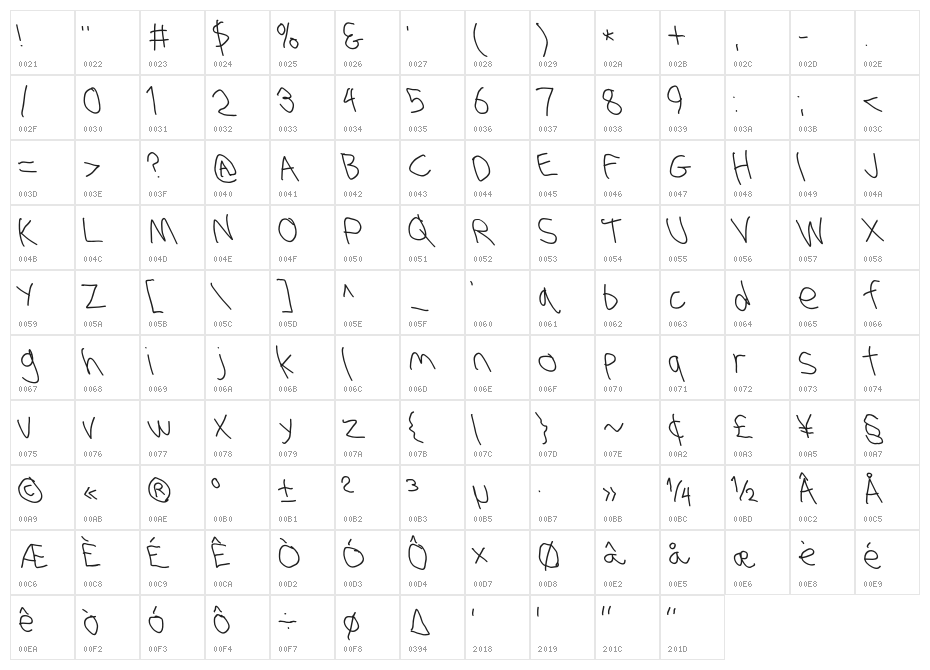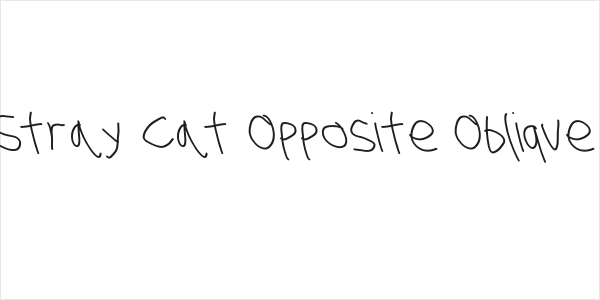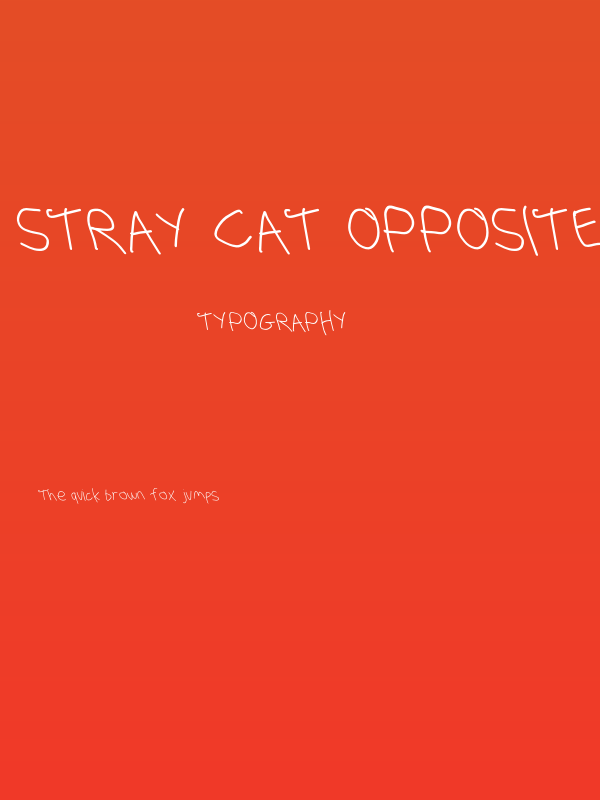
Stray Cat Opposite Oblique Font
Stray Cat Opposite Oblique Description
This font features a playful, handwritten style with a casual and informal appearance. The letters are slightly uneven, adding to its charm and authenticity. The strokes are consistent in width, giving it a uniform look despite its freeform nature. The characters are well-spaced, ensuring readability while maintaining a whimsical feel. This font is perfect for projects that require a personal touch or a creative flair. Its unique style makes it suitable for artistic and expressive designs.